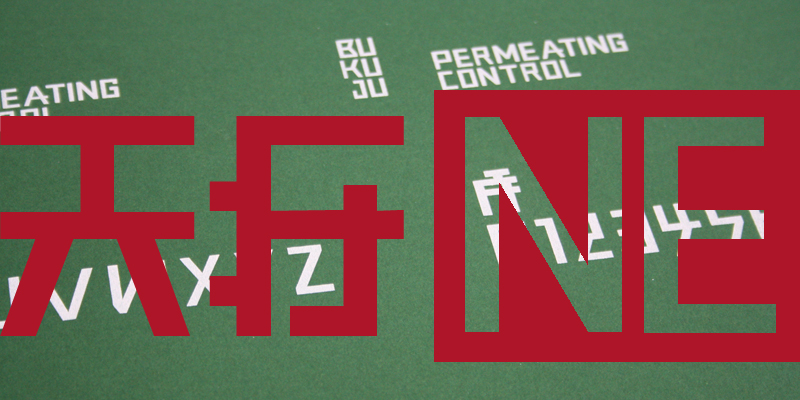
Preview and download Bukuju RW Font. Created by Rob Watts in Techno Various styles with Free for personal use license.
"Inspired by 500 years of eastern feudism, the typeface seeks unity. displaying text in a demanding, precise fashion." robwattsdesign.com Font is free for personal use. If you wish to use the font for public or commercial use please email me via my website. Some Versions of MS Word are unable to show the punctuation characters. |